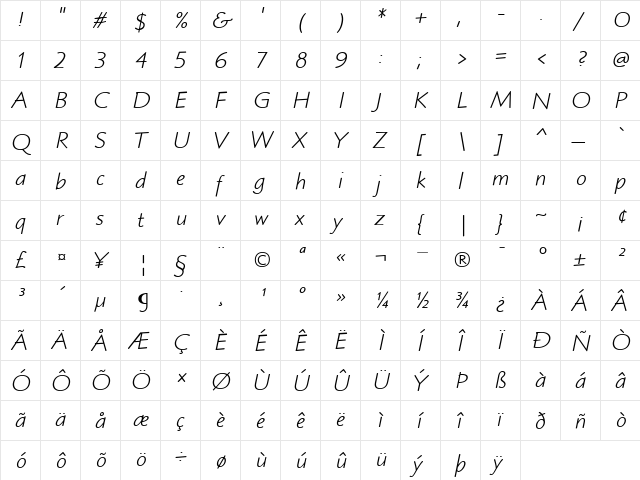
Blueprint MT Italic
Design Context for Blueprint MT Typeface
Blueprint MT offers clean, dependable letterforms without strong stylistic allegiance, making it a practical choice for designers who need flexibility. The dynamic lean of this cut emphasises speed and emphasis in any layout.
Pro Tip: Use Blueprint MT for emphasis, pull quotes, and subheadings where its slanted energy can add rhythm to the layout.